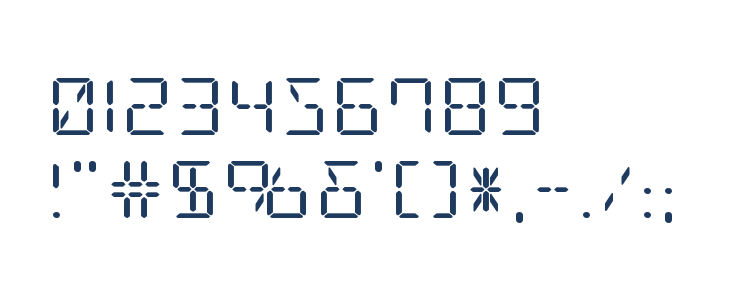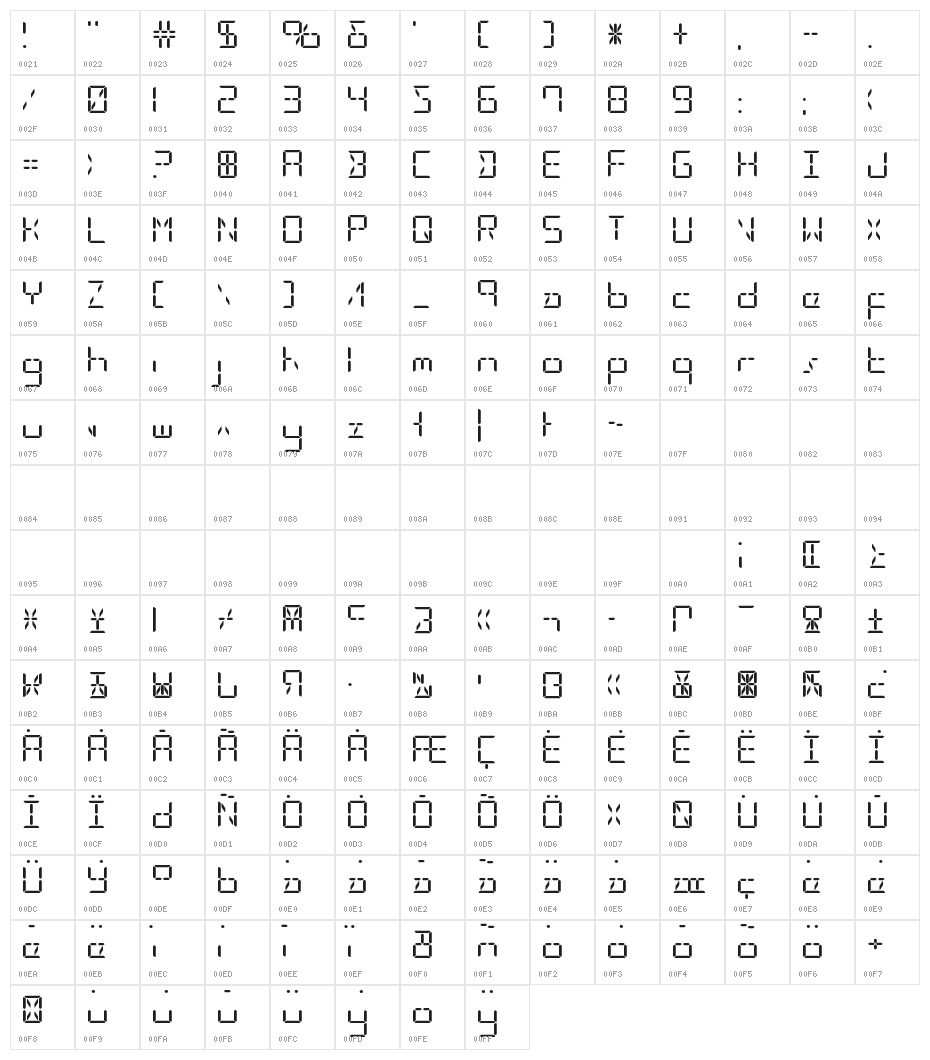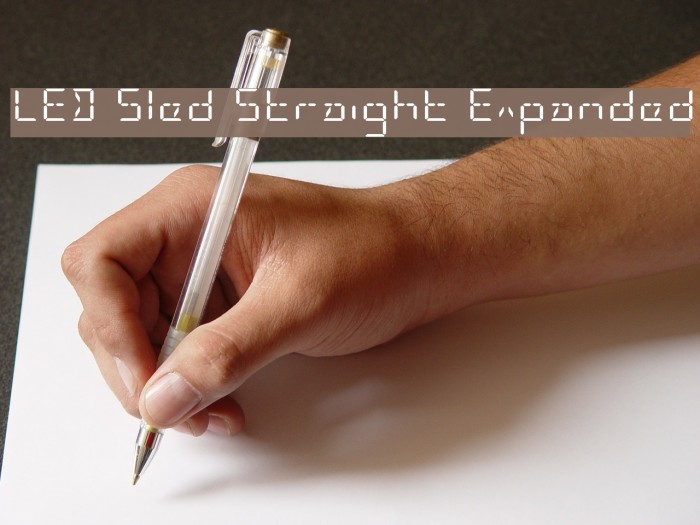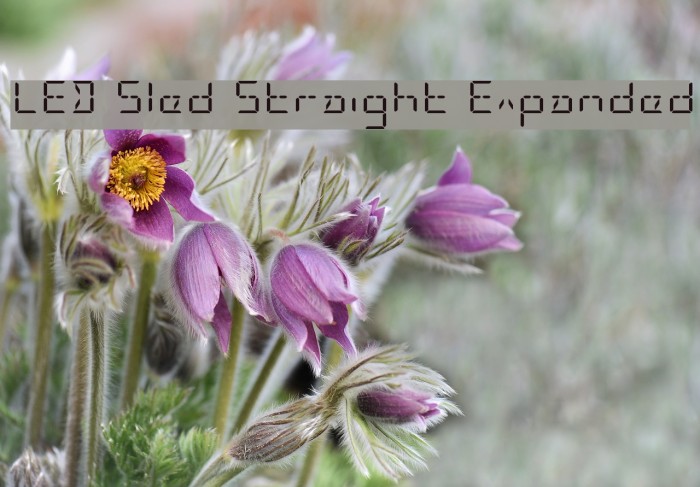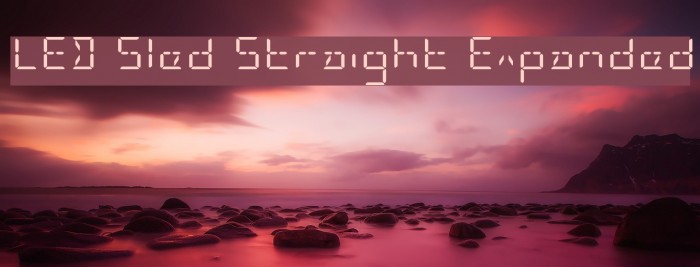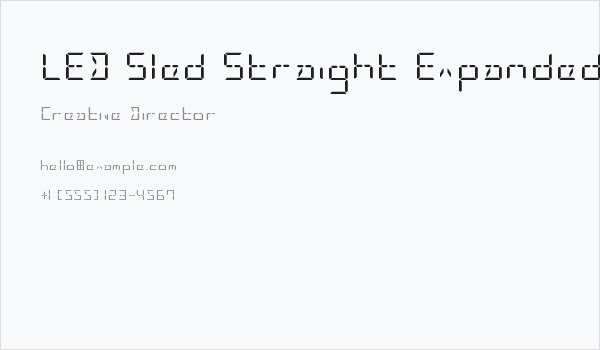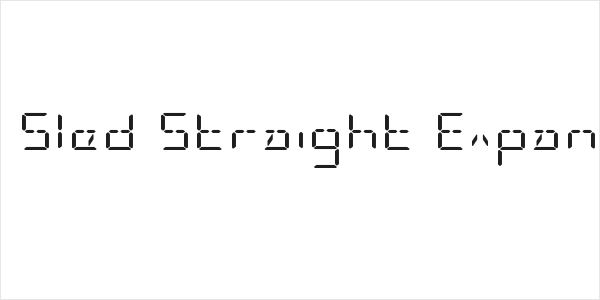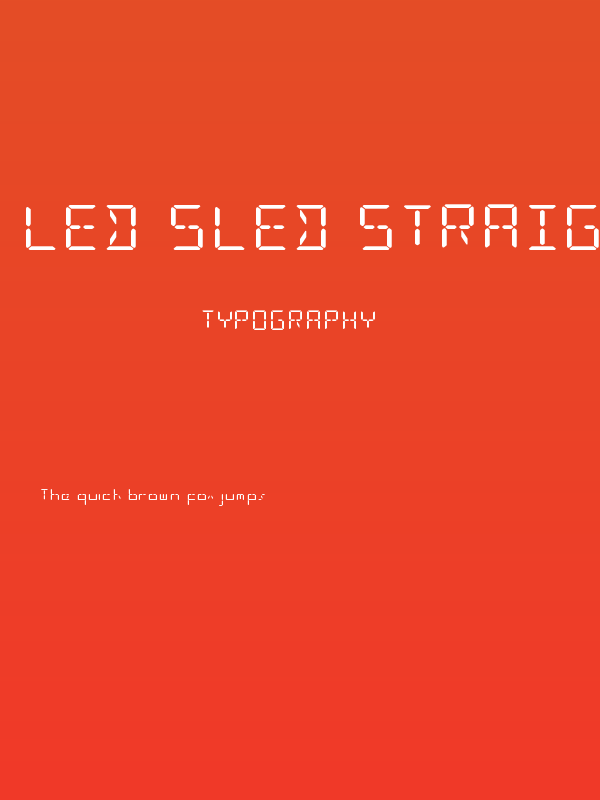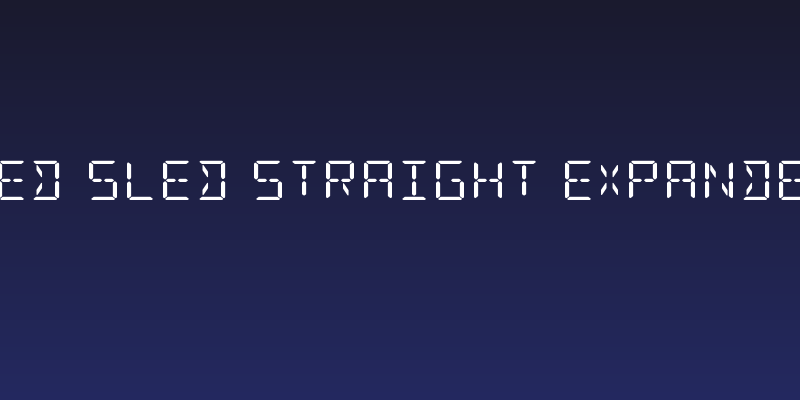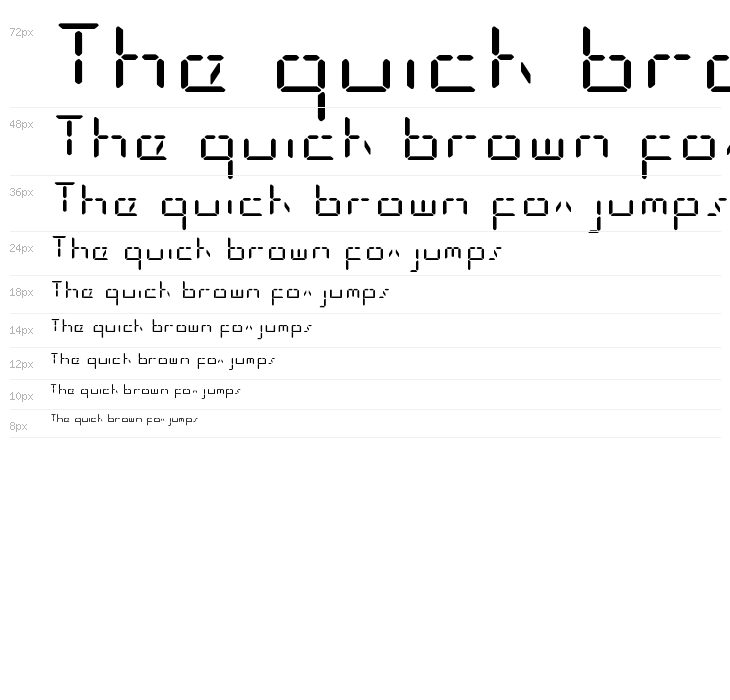
LED Sled Straight Expanded Font
LED Sled Straight Expanded Description
This font features a distinctive, digital-inspired design reminiscent of LED displays. Each character is composed of geometric segments, creating a futuristic and technical appearance. The uppercase and lowercase letters maintain a consistent style, with angular and straight lines forming each character. Numbers and special characters follow the same segmented pattern, enhancing the cohesive look. The font's expanded width gives it a bold presence, making it ideal for attention-grabbing applications. Its unique style is both modern and retro, suitable for projects that require a digital or technological theme.
| Proposed Projects | Ideal for digital displays, tech-themed designs, futuristic branding, and electronic product packaging. |